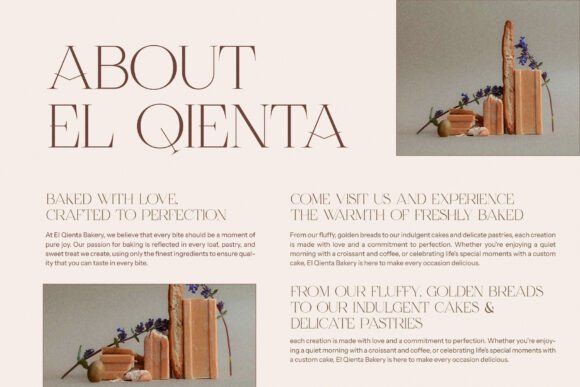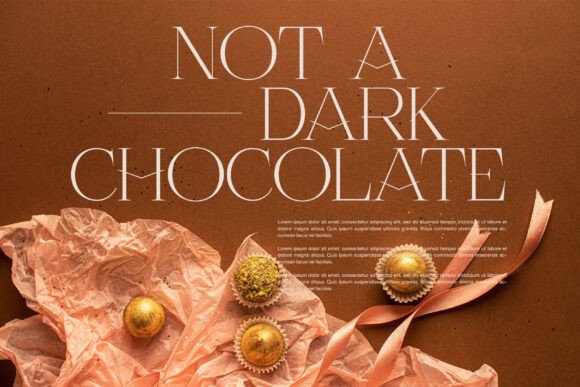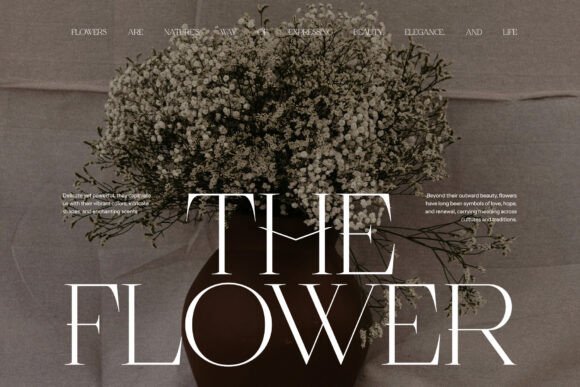
Introduction to Serifa Font
As a designer, there’s nothing quite like the thrill of discovering a new font that elevates your creative project to the next level. It’s that moment when the perfect combination of style, sophistication, and legibility comes together to make your work truly shine. For me, that moment arrived when I stumbled upon the Serifa Font – a stunning serif font that exudes elegance and luxury.
With its refined lines, subtle curves, and expertly crafted ligatures, the Serifa Font is the perfect choice for designers seeking to create high-end branding, logos, and design elements that demand attention. Whether you’re working on a premium product packaging design or a luxurious wedding invitation, this font’s versatility and sophistication make it an invaluable design resource.
Key Features of Serifa Font
- Features a clear and elegant serif design, perfect for body text and titles
- Supports a wide range of languages, including Latin, Cyrillic, and Greek scripts
Honest Review: Serifa Font
I recently had the chance to work with the Serifa Font, and I must say, it’s been a game-changer for my design projects. This high-quality font is a great addition to any design resource, offering a unique and elegant touch to my creative projects.
What works well: ✨ The Serifa Font is incredibly versatile, suitable for both print and digital designs. The font’s subtle texture and refined details make it perfect for headlines, body text, and even logos. Its high-quality design ensures a professional finish, making it a must-have for any serious designer.
Limitations: ⚠️ While the Serifa Font is an excellent choice for many design projects, it may not be the best option for projects that require a more playful or modern aesthetic. Additionally, some users may find the font’s subtle texture and refined details to be a bit too subtle for their taste.
Overall, I’m thoroughly impressed with the Serifa Font and would highly recommend it to any designer looking for a high-quality, versatile font for their creative projects.
Use the Serifa Font for creative projects that require a sophisticated and elegant look. It’s ideal for designing business cards, brochures, and marketing materials. To get the most out of the font, experiment with different font sizes, colors, and layer styles to create a unique design.